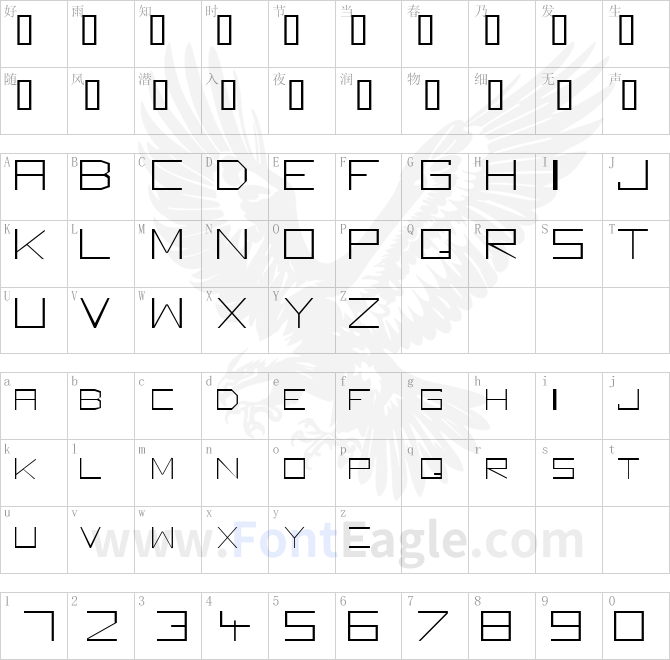
- Font name:Square Unique
- Font Subfamily ID:Square Unique Thin
- Font Full Name:Square Unique Thin
- Font Version:Graf X press 1.1
- Postscript:SquareUniqueThin
- Font Copyright:designed by Dieter Schumacher © 1998